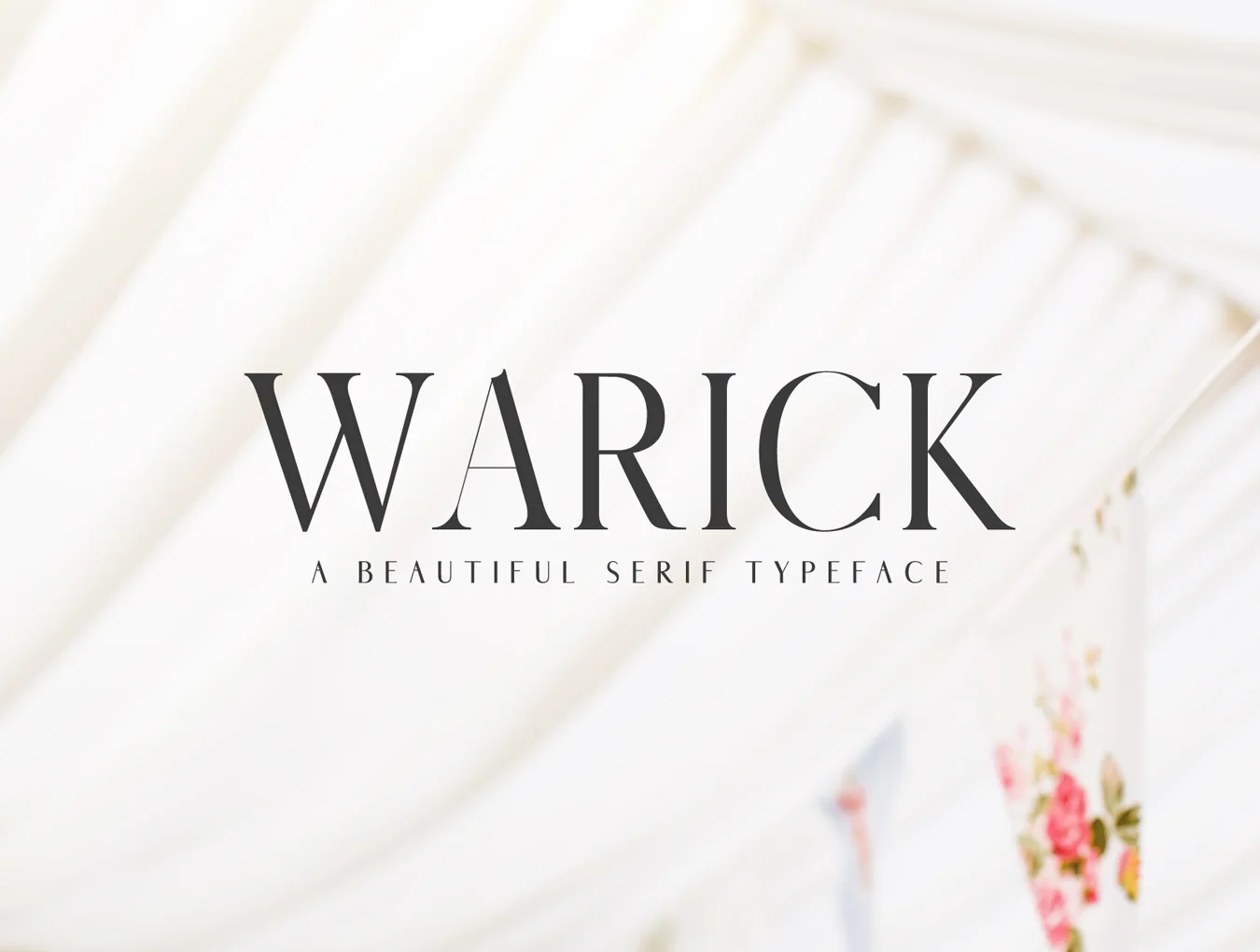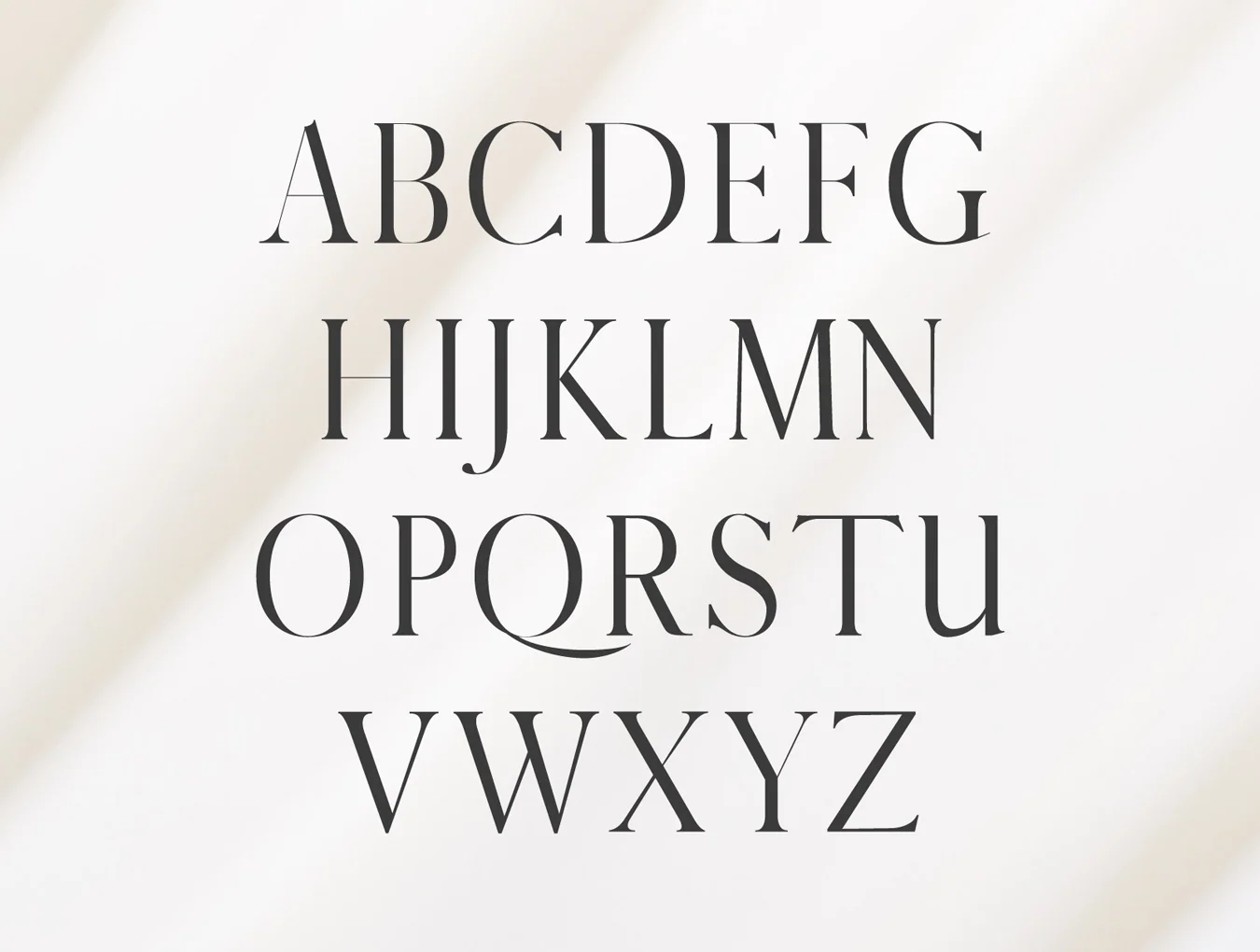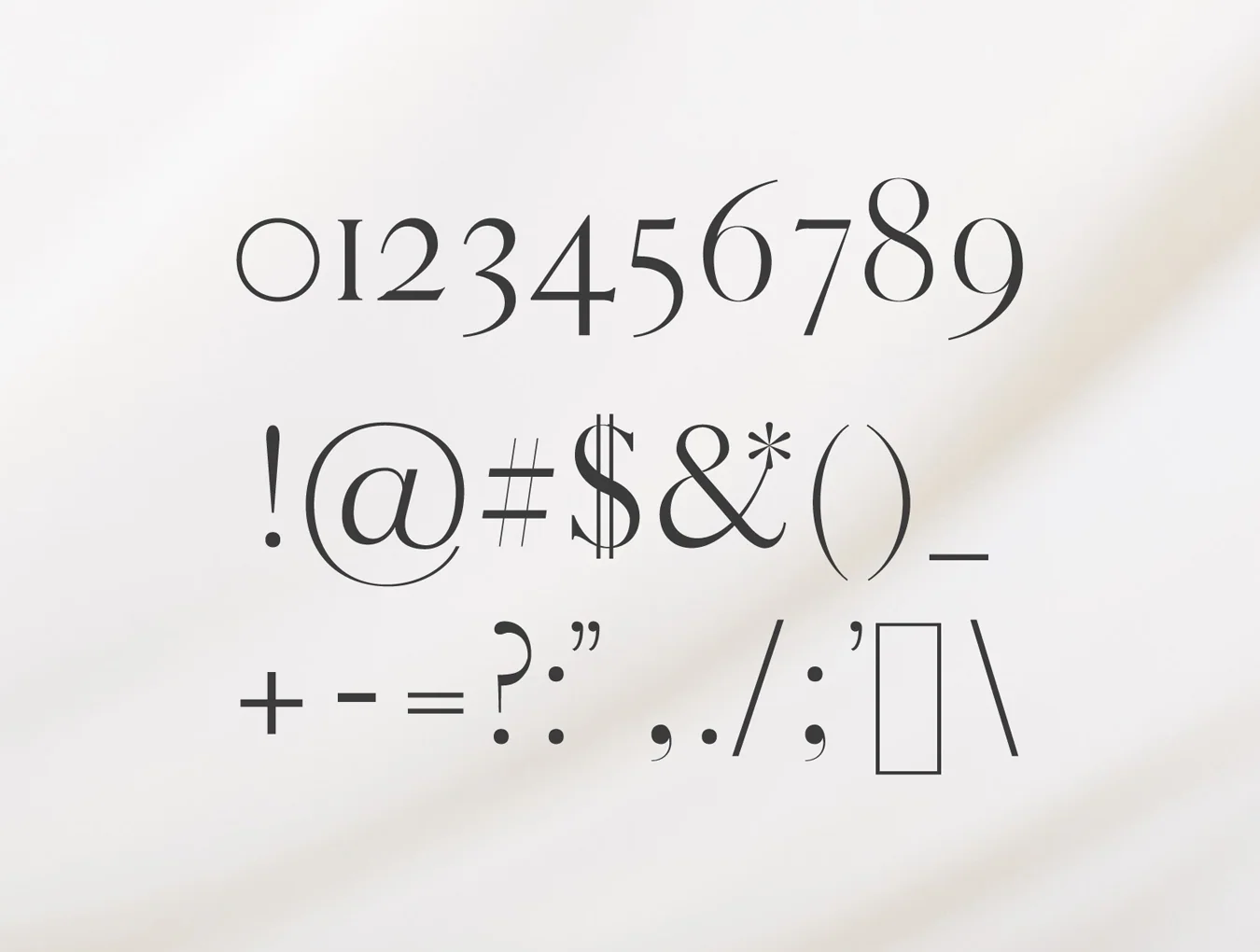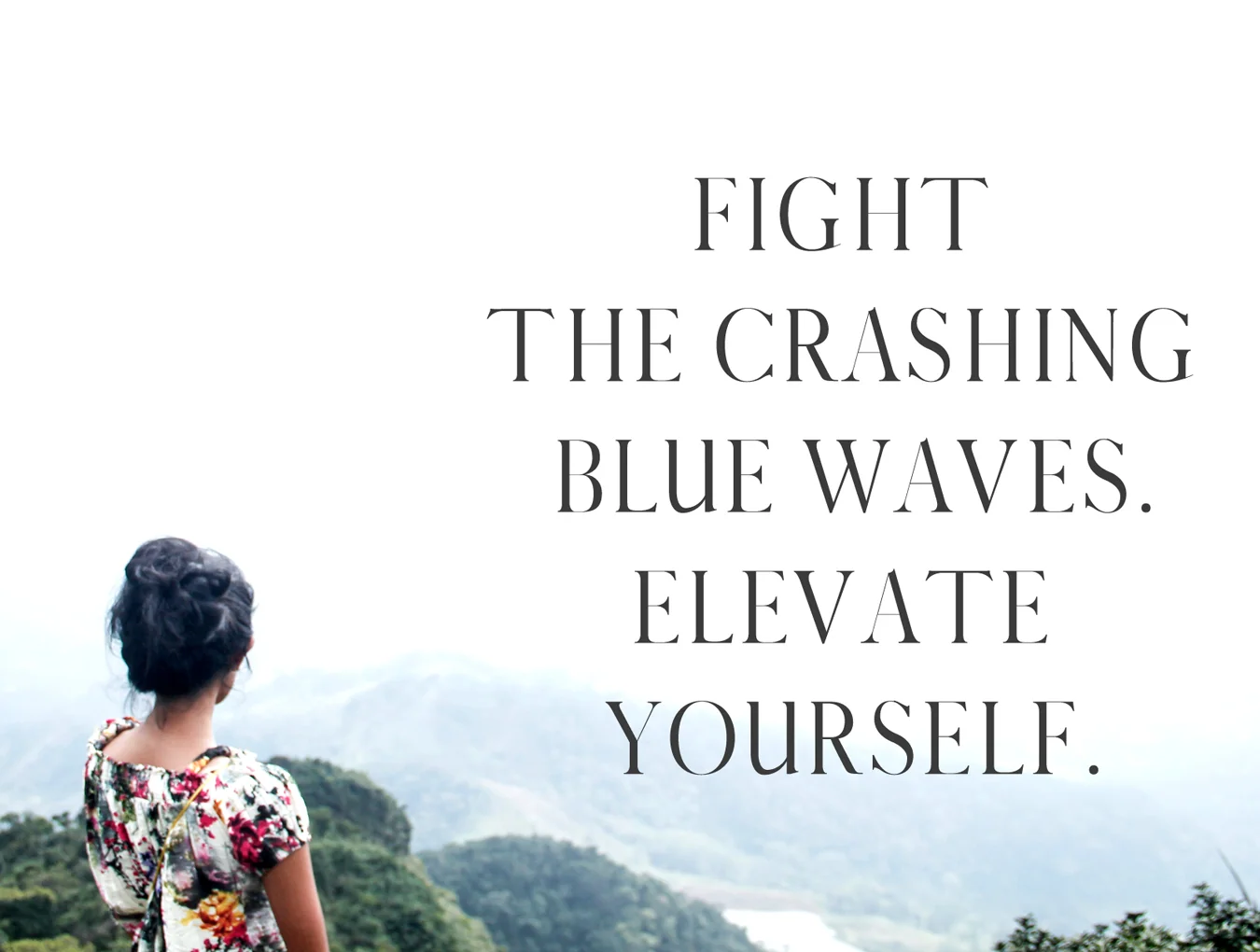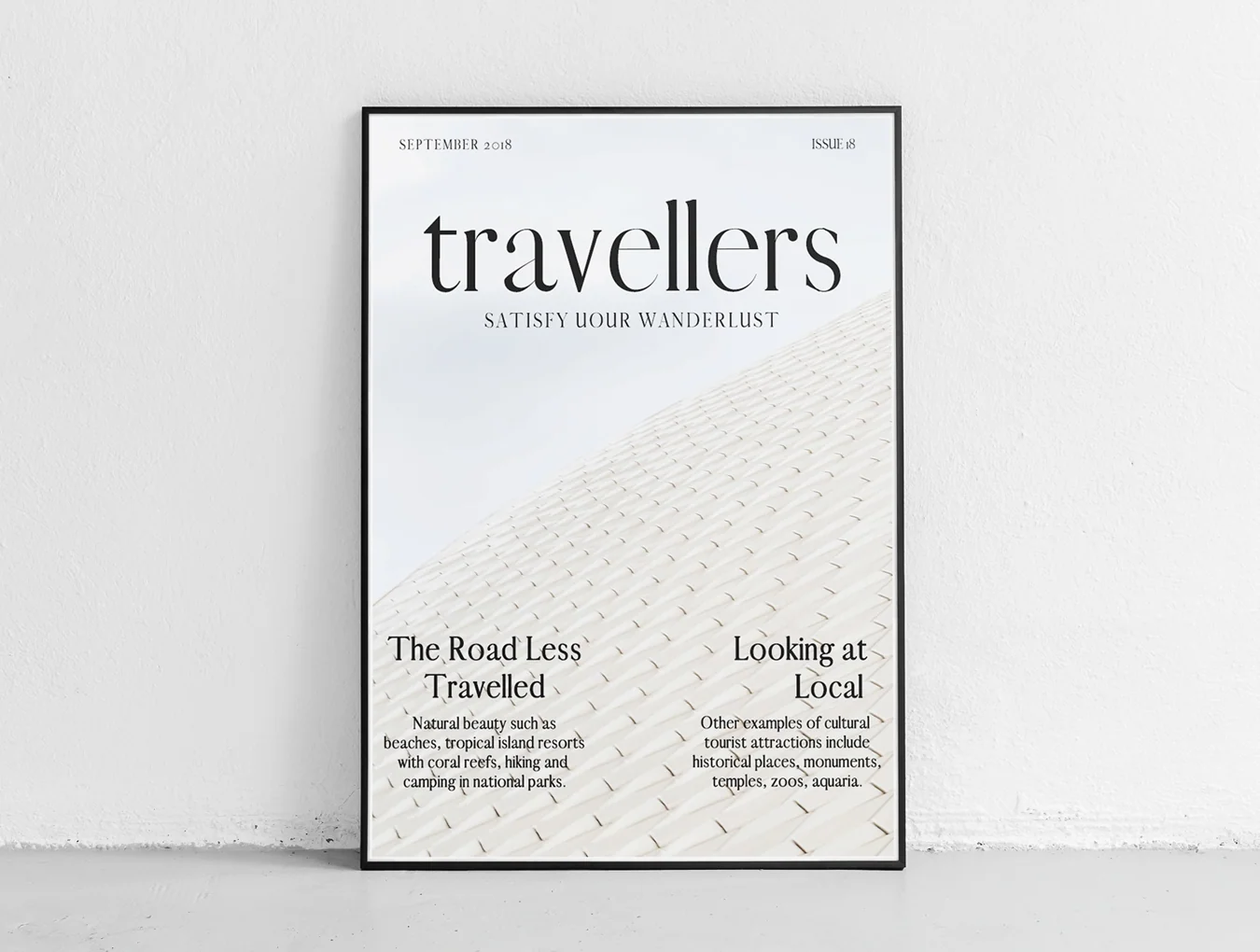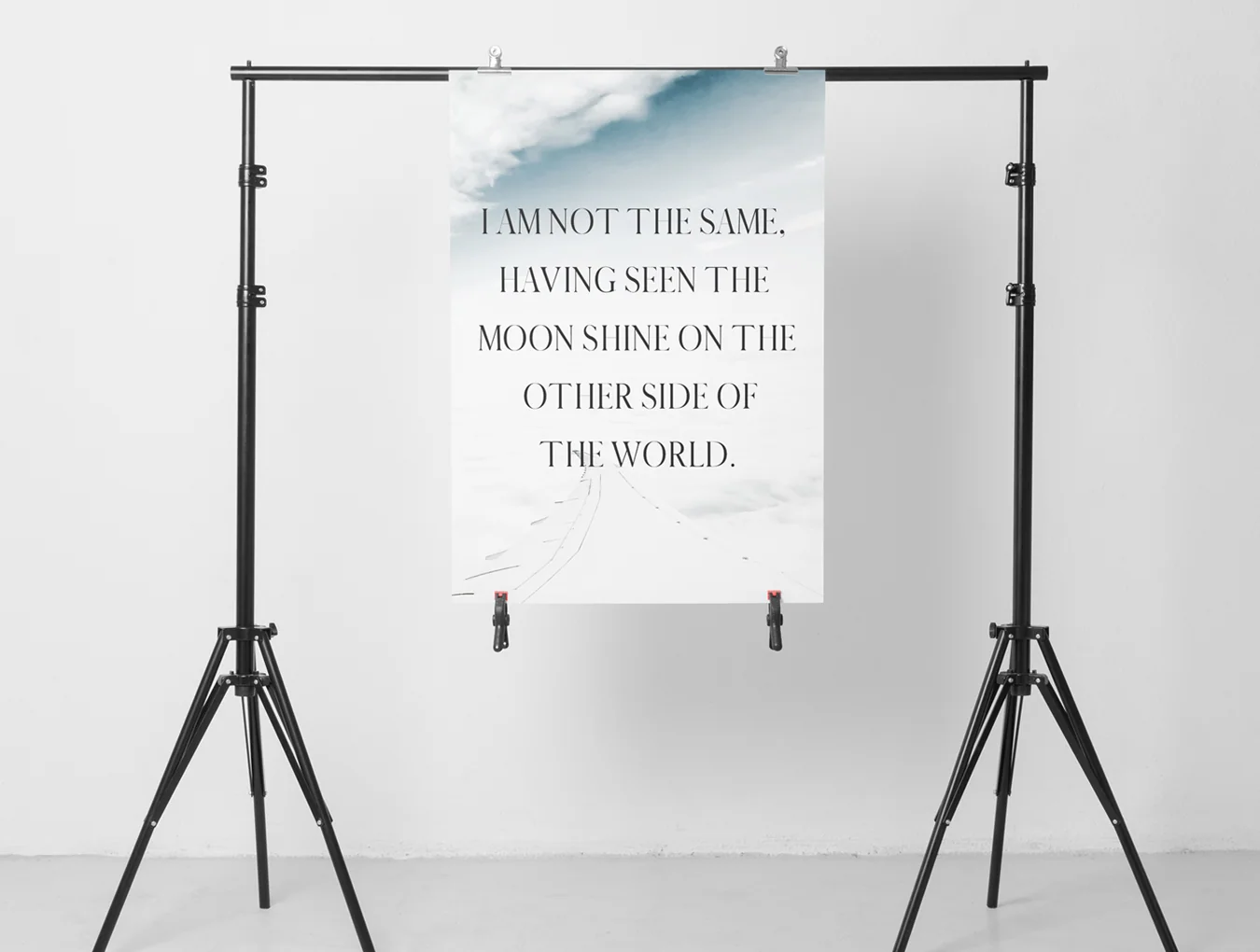
Warick Serif Font Family
Warick Serif 6-Type Font Set
Serif-style font family
Six weight variations
Includes 260 glyph characters
Warick is a refined contemporary serif font that works beautifully across many uses. It comes with essential glyphs and multilingual characters, and pairs well with script, signature, or handwritten styles. Ideal for headlines, titles, magazine headers, logos, ads, posters, quotes, websites, invitations, packaging, books, branding, and other creative projects.